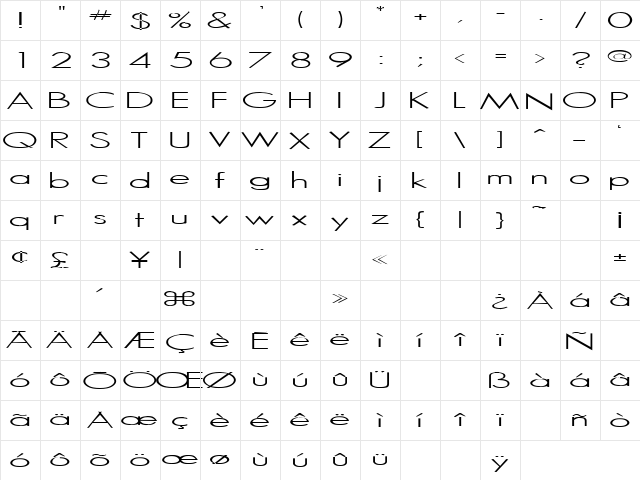
Loving 19 Regular
Design Context for Loving 19 Typeface
Loving 19 is a composed and adaptable typeface that performs quietly and consistently across a wide range of design contexts.